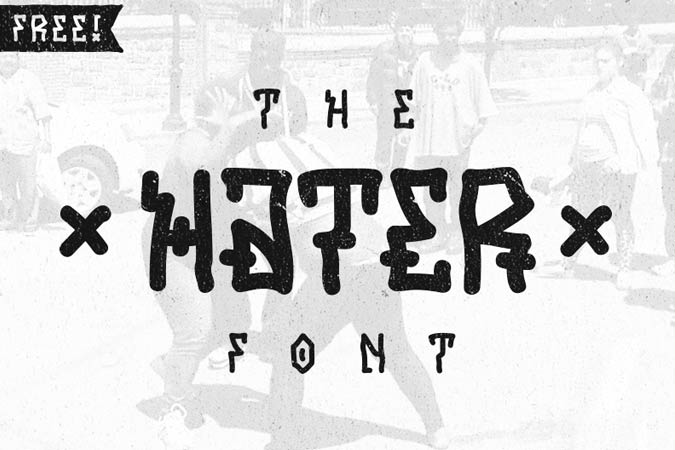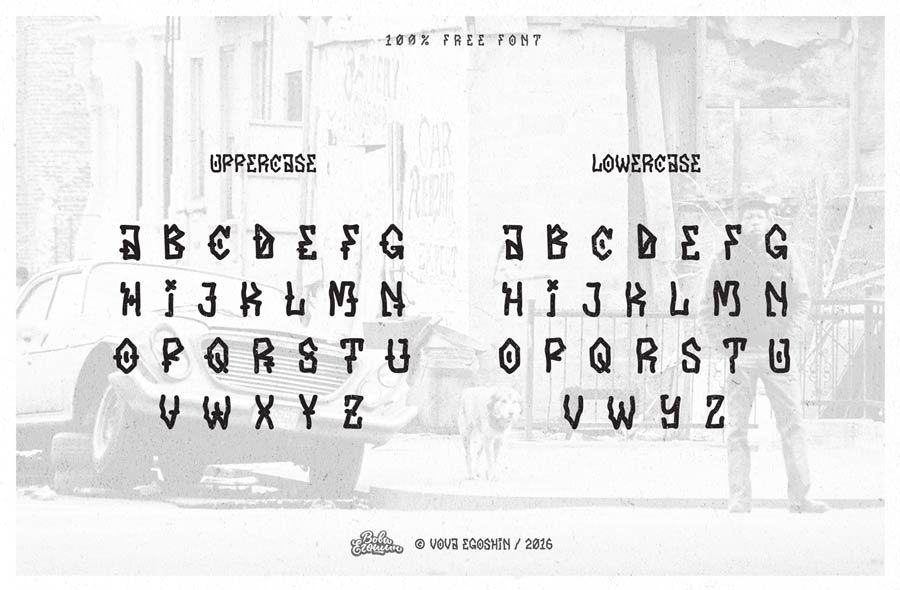
Hater is a free font that was created just for fun with no special reason! The letter designs are actually quite hard to read, so it works best on big display designs, which I think can be used on to create unique sense of expression.